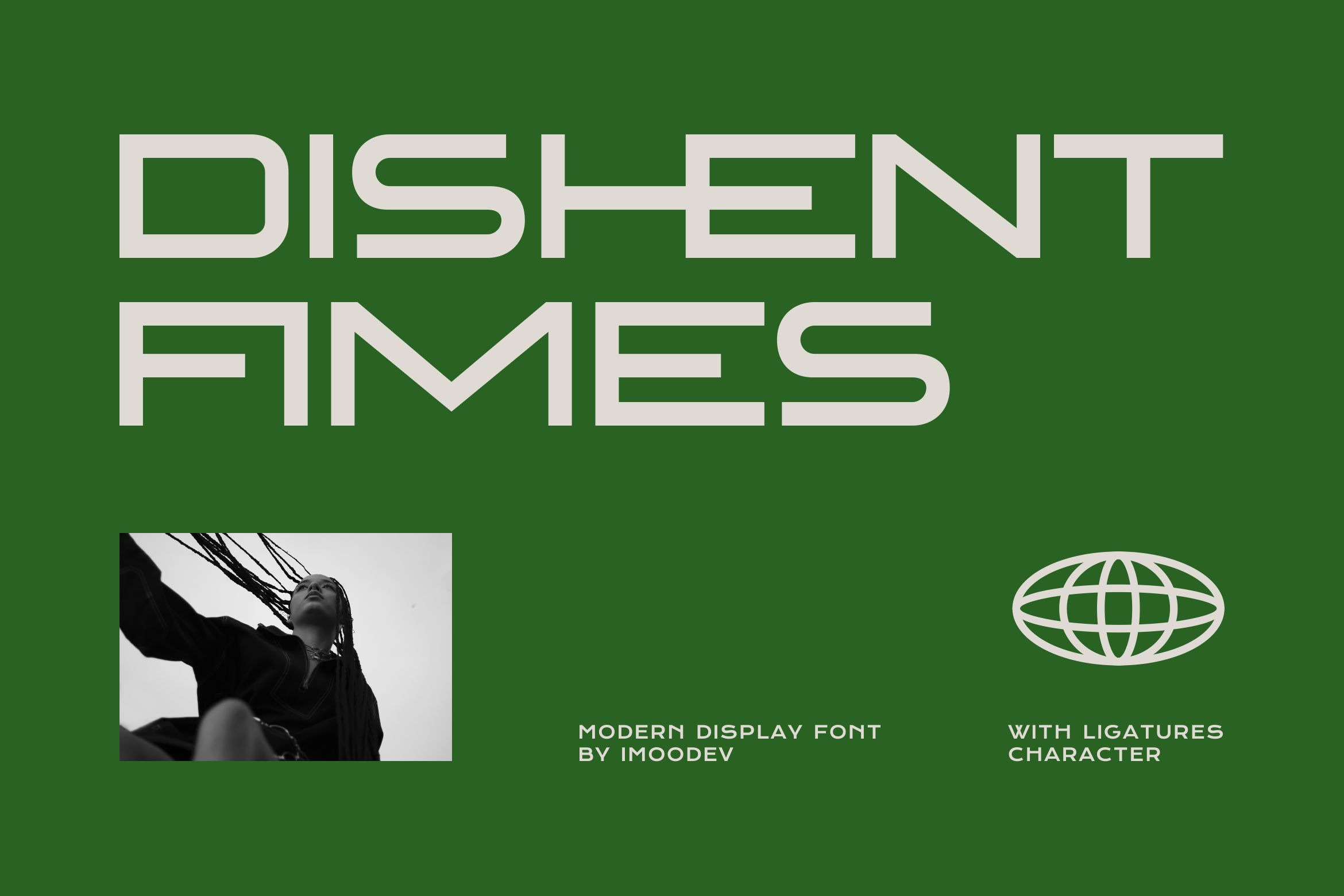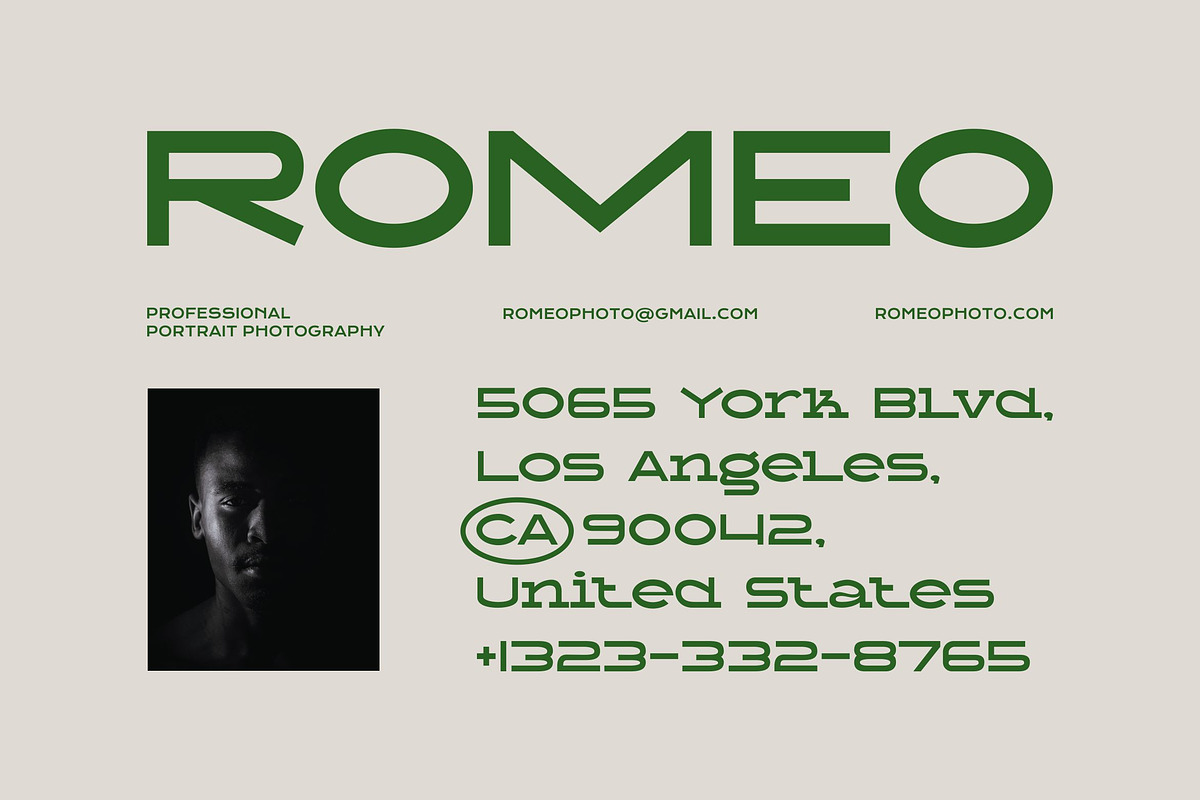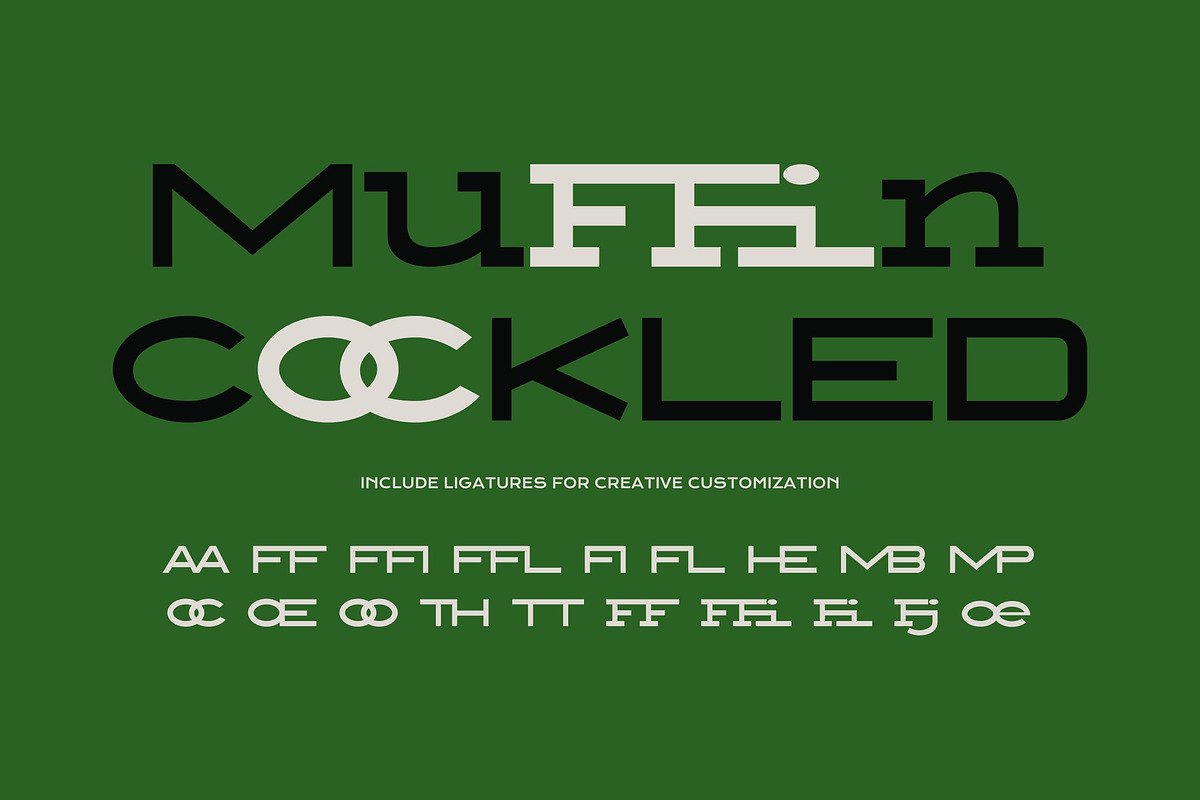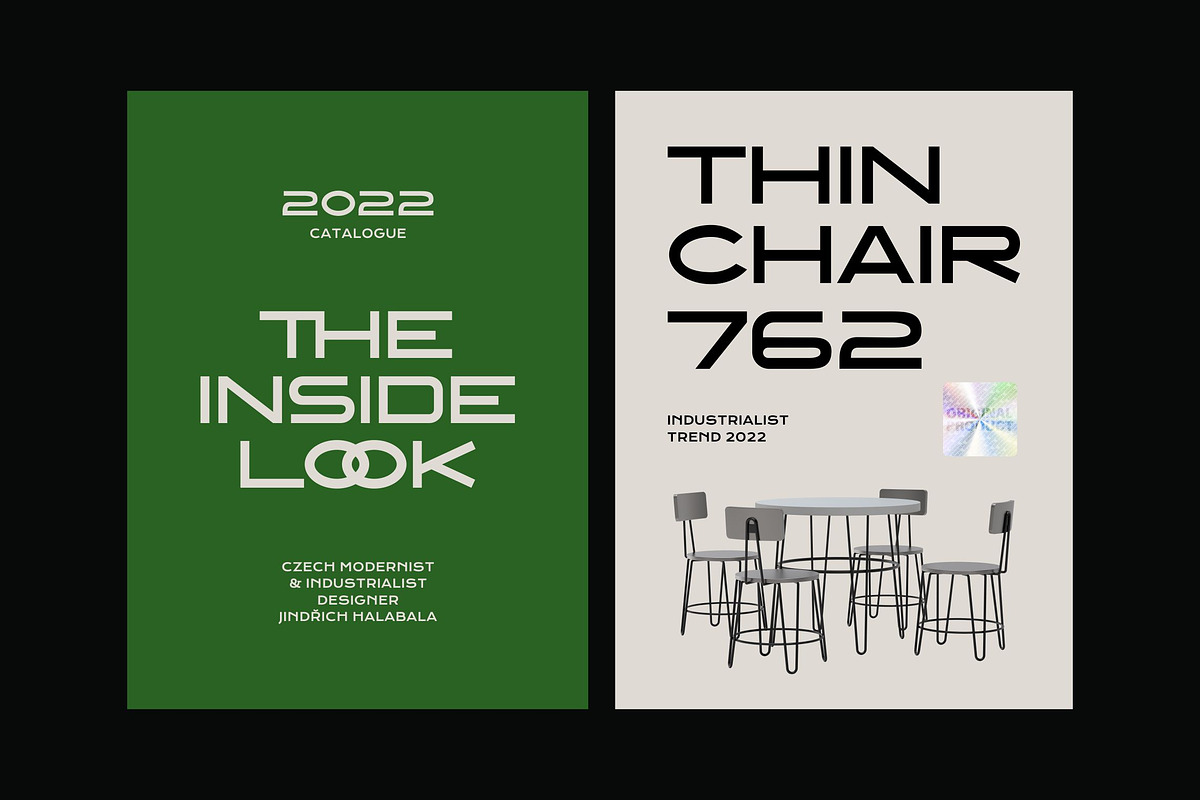
Dishent Fimes - Extended Typeface
Dishent Fimes is a futuristic and extended typeface designed for modern creatives who want to make a strong visual impact. With its geometric structure and industrial undertones, this typeface strikes the perfect balance between contemporary minimalism and expressive detail.
From magazine spreads and branding systems to poster design and editorial headlines, Dishent Fimes adds a sleek and avant garde character to any project.
- Uppercase and Lowecase Characters.
- PUA Encoded Characters.
- Numerals and Punctuations.
- Alternates and Ligatures.
- Multilingual Support.